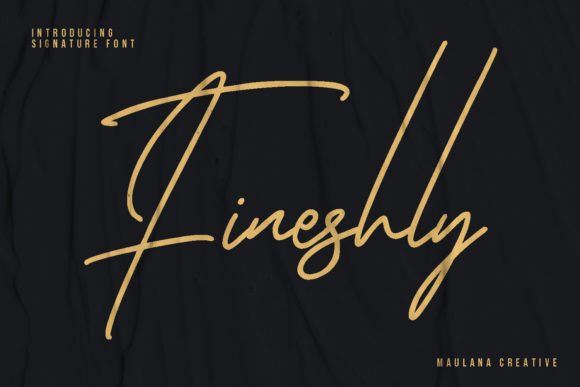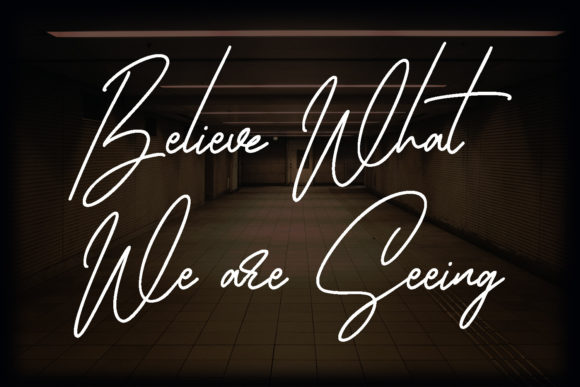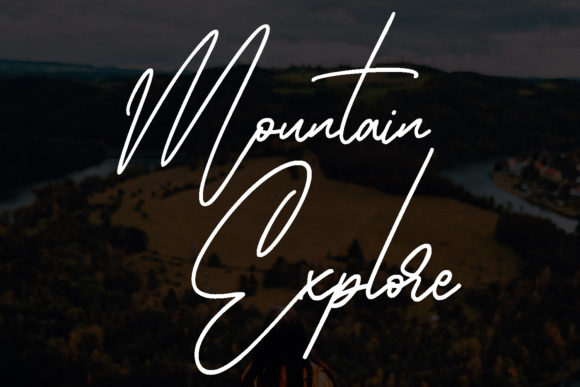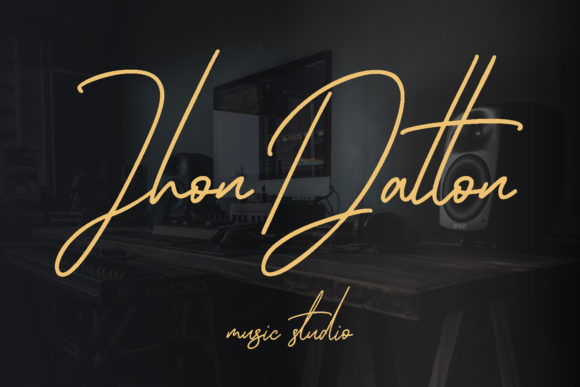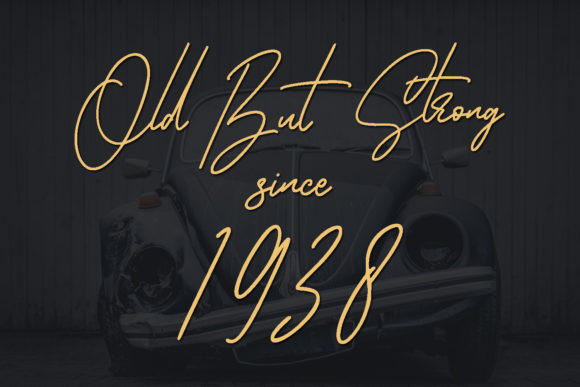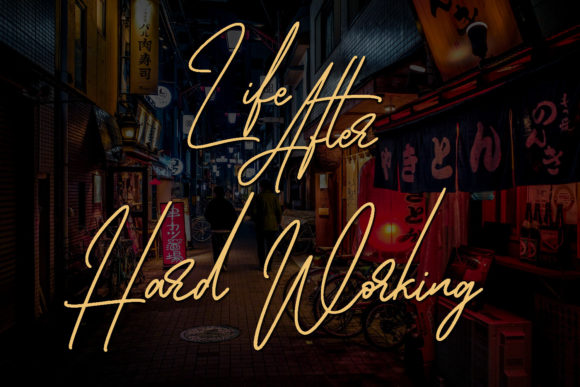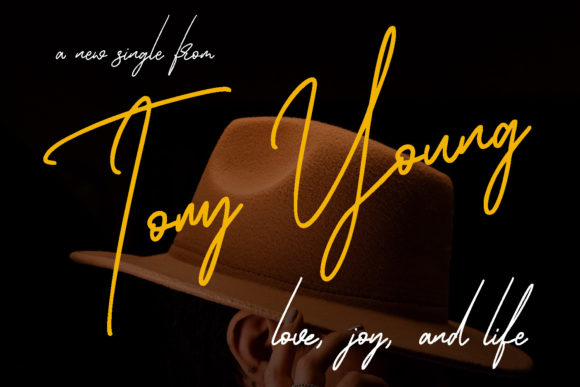
The Perfect Signature: Elevate Your Brand with Fineshly Signature Font
You’ve finally landed on the perfect idea for your new project – a unique logo that showcases your personality and style. You envision it on a t-shirt, a business card, or even a website banner. The excitement is palpable as you imagine the impact it will make. But, have you ever been stuck on finding the perfect font to bring your vision to life?
Enter Fineshly Signature Font, a delicate and fashionable script font designed to take your branding projects to the next level. Whether you’re a seasoned designer or a creative entrepreneur, this versatile font is the perfect addition to your toolkit. With its extraordinary style, Fineshly Signature Font is sure to make your designs stand out in a crowded market.
Fineshly Signature Font Key Features
- Font Family: Fineshly Signature Font is a unique, high-end font family designed to make a lasting impression. It includes 6 styles: Regular, Bold, Italic, Bold Italic, Script, and Display.
- Character Set: Fineshly Signature Font includes a comprehensive character set, covering Latin, Cyrillic, and Greek alphabets, as well as punctuation and symbols.
- Unique Characteristics: Fineshly Signature Font features a distinctive, elegant design with intricate details, making it perfect for creating high-end logos, branding materials, and signatures.
Fineshly Signature Font Review
I recently had the chance to work with the Fineshly Signature Font, and I must say it’s an interesting addition to any design project. ✨ The font’s unique blend of elegance and sophistication makes it perfect for creating a high-end look.
The Fineshly Signature Font features a wide range of weights, from light to bold, which allows for a lot of flexibility in terms of design. ✨ The font is also highly customizable, with options to adjust the spacing and kerning to suit your needs. This makes it a great choice for designers who want to add a personal touch to their work.
- Unique blend of elegance and sophistication
- Wide range of weights (light to bold)
- ⚠️ Limited support for non-Latin scripts
- ⚠️ Can be difficult to read in small font sizes
- ⚠️ Some users may find the font too ornate
Overall, I would give the Fineshly Signature Font 4 out of 5 stars. While it’s a beautiful font with a lot of potential, its limitations may make it less suitable for certain design projects. However, with the right design choices and a clear understanding of the font’s capabilities, the Fineshly Signature Font can be a great addition to any designer’s toolkit.
The Fineshly Signature Font is perfect for creating elegant and sophisticated designs. Use it for:
- Personal branding materials, such as business cards and letterheads.
- Wedding invitations and other special occasion stationery.
- Marketing materials, such as brochures and flyers.
Remember to experiment with different font sizes, colors, and styles to get the most out of the Fineshly Signature Font.